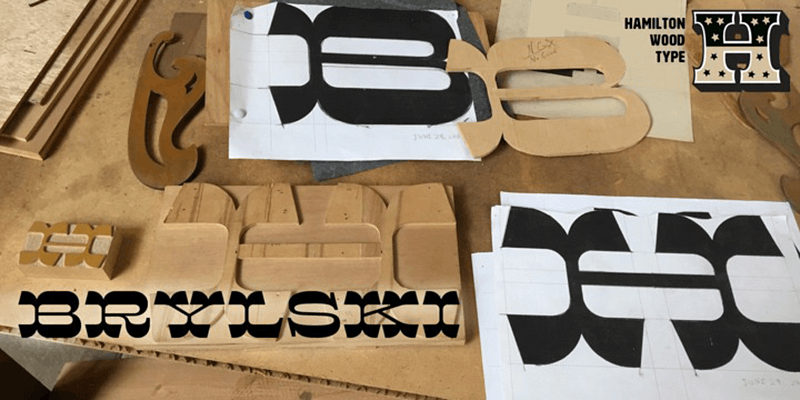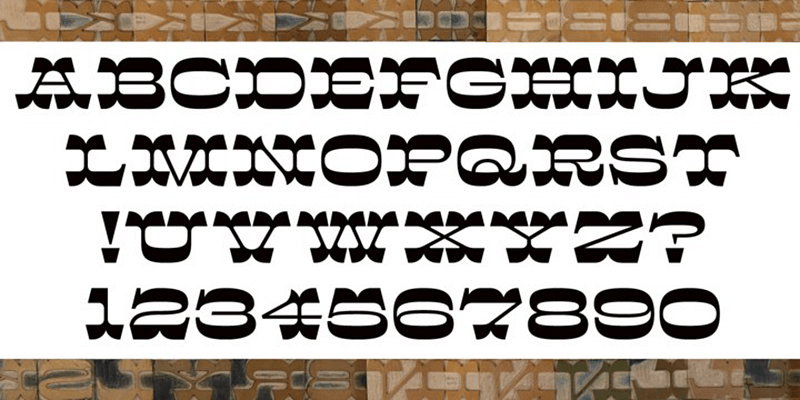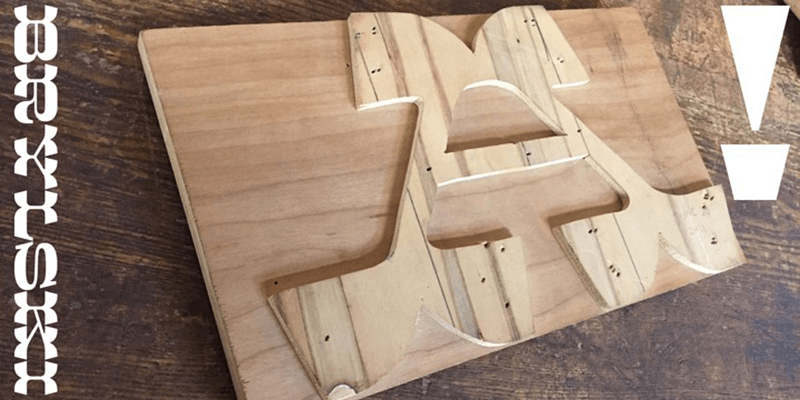
HWT Brylski is a contemporary wood type design by Nick Sherman. It use many themes common in 19th-century type including: split tuscan serifs, angled sides, reverse stressing, and an extended width.